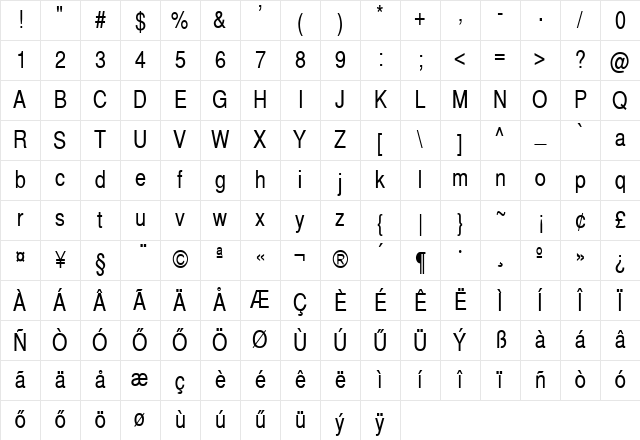
Huni_Switzerland Dm Regular
Design Context for Huni_Switzerland Dm
Huni_Switzerland Dm is a composed and adaptable typeface that performs quietly and consistently across a wide range of design contexts.
Pro Tip: Use Huni_Switzerland Dm in both headline and body roles to test its range before committing to a single application.